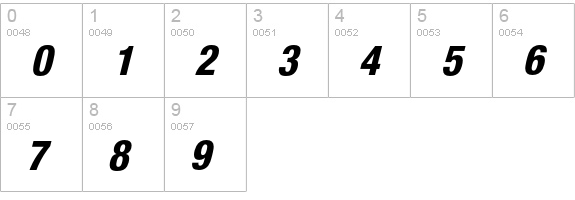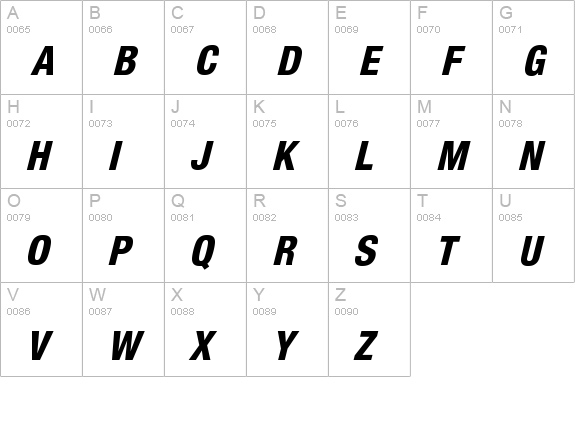
Olnova-ExtraBoldCondIta Font Details
The Olnova-ExtraBoldCondIta font is a striking display typeface that exudes elegance and modernity. With its bold and italicized design, this font is perfect for making a statement in your design projects. The sharp, sleek lines of Olnova-ExtraBoldCondIta give it a distinctive and eye-catching appearance, making it ideal for headlines, logos, and other graphic design applications. What's even better is that Olnova-ExtraBoldCondIta is available for free download at FontsMarket.com. This means you can easily incorporate this stylish font into your projects without any cost. Don't miss out on the opportunity to enhance your designs with the unique flair of Olnova-ExtraBoldCondIta - download it now and elevate your creative projects to the next level.